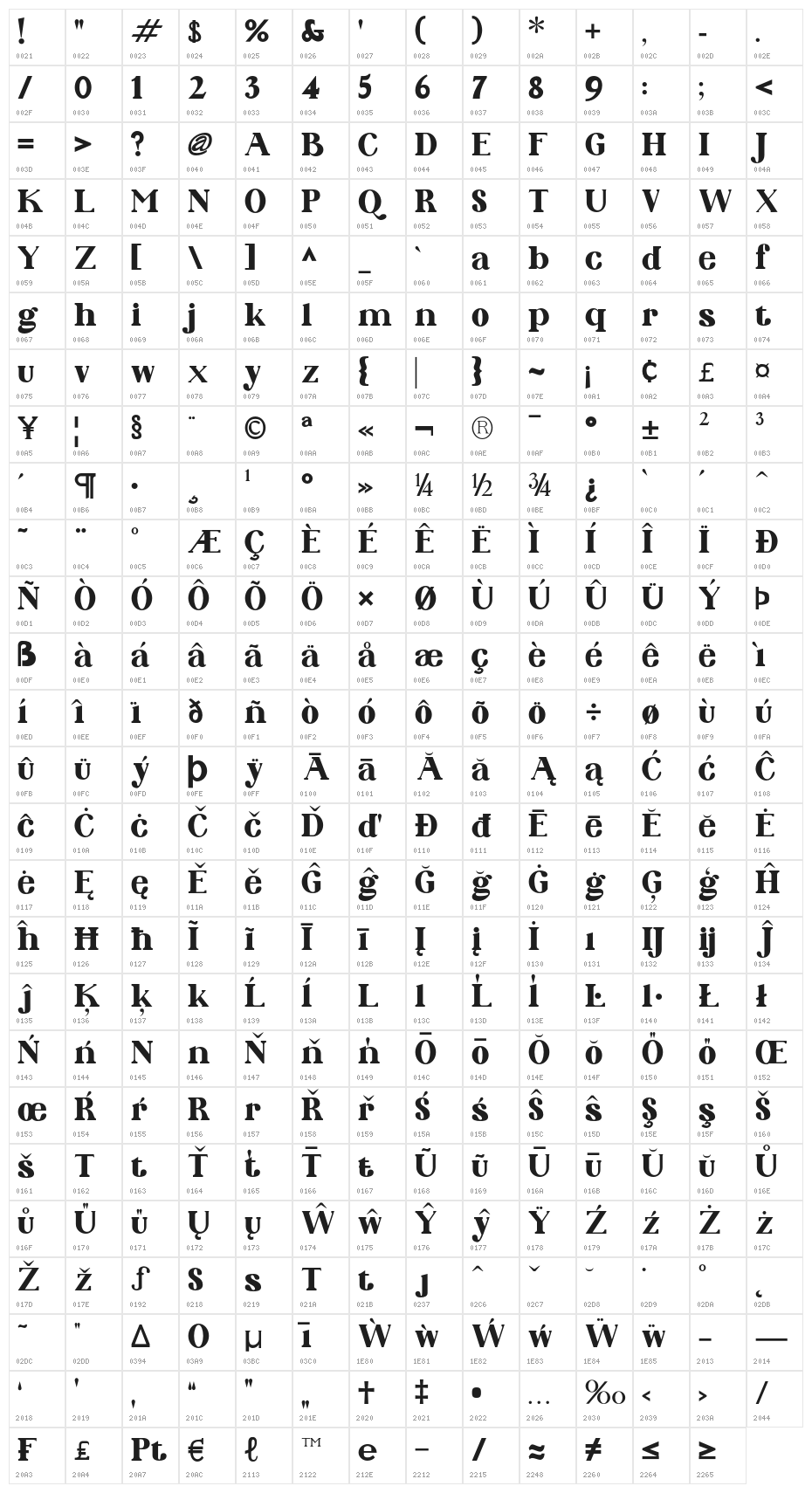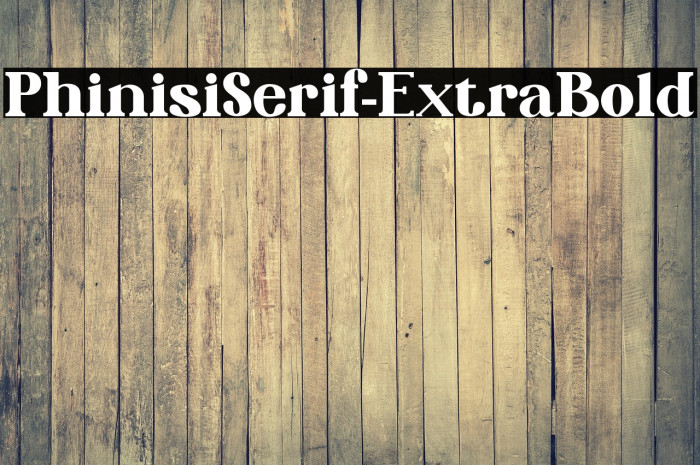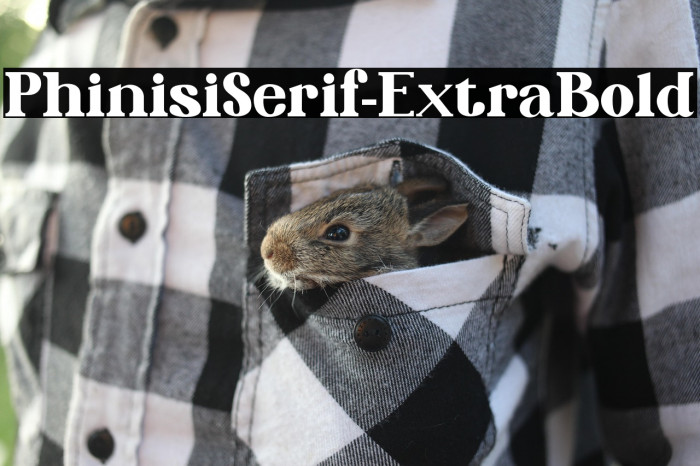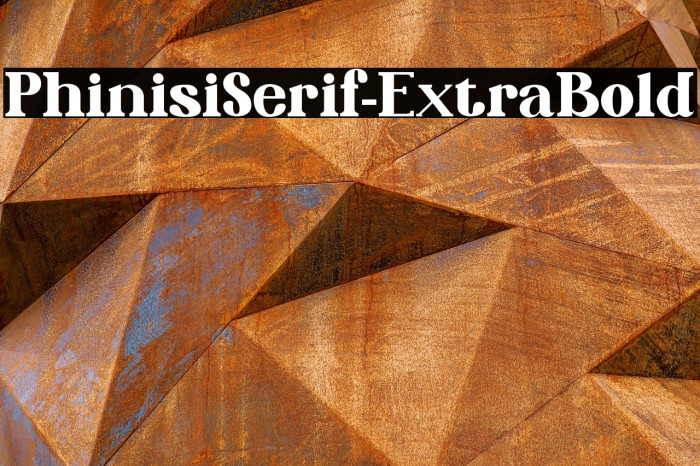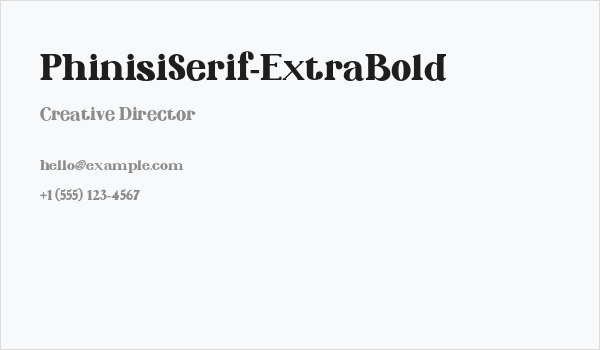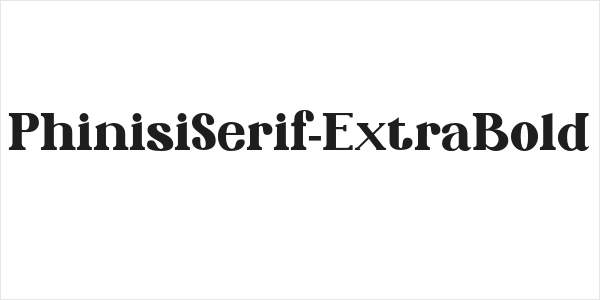
PhinisiSerif-ExtraBold Font
PhinisiSerif-ExtraBold Description
This font exhibits a bold and commanding presence with its thick, pronounced serifs and strong vertical lines. The uppercase letters are particularly striking, with a robust and authoritative look that demands attention. The lowercase letters maintain a consistent weight, providing a harmonious balance across the typeface. The numerals are equally bold, ensuring clarity and readability. Special characters are designed with the same boldness, making them stand out effectively. Overall, this font combines traditional serif elements with a modern twist, making it versatile for various design needs.
| Proposed Projects | Ideal for headlines, branding, posters, and any project requiring a bold, authoritative typeface. |